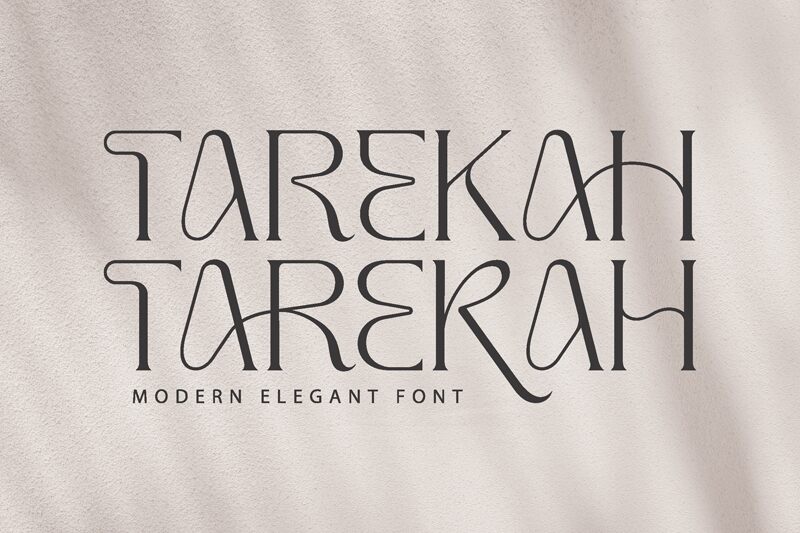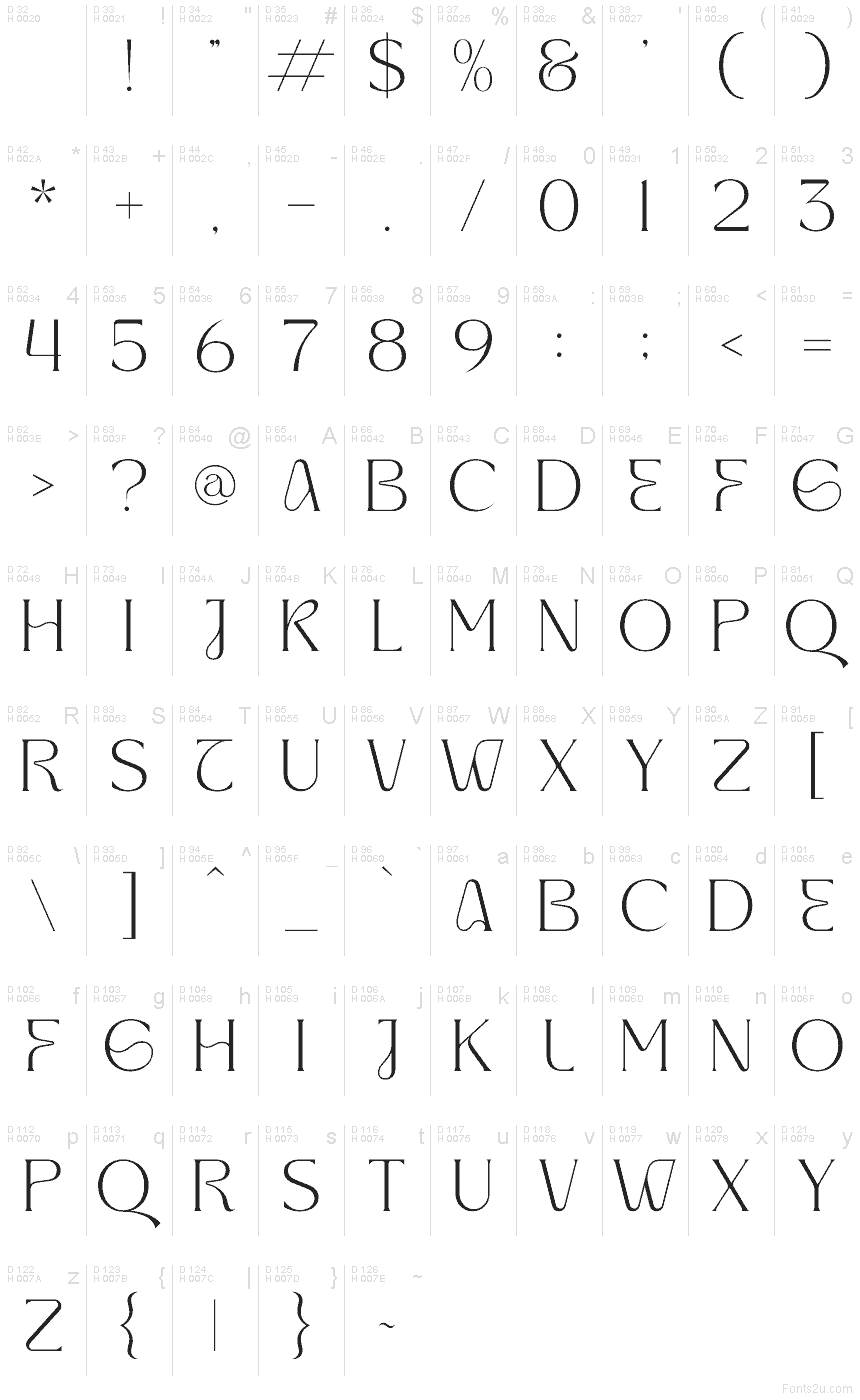
Tarekah font by Denustudios is a free retro serif font that turns curves into sculpture. Its ribbon-like strokes swoop into carved inner cuts and slender bridges, giving each letter a poised, fashion-forward silhouette. The rhythm feels editorial: airy spacing, elegant sweep, and just enough bite in the corners to keep headlines crisp.
Using Tarekah, titles gain a luxe, time-traveling glow that suits fashion logos, magazine covers, perfume or skincare packaging, event invitations, book jackets, and album art. This free font shines at large sizes where those carved details can breathe. Pair it with a simple geometric sans for body copy and let Tarekah handle the spotlight.